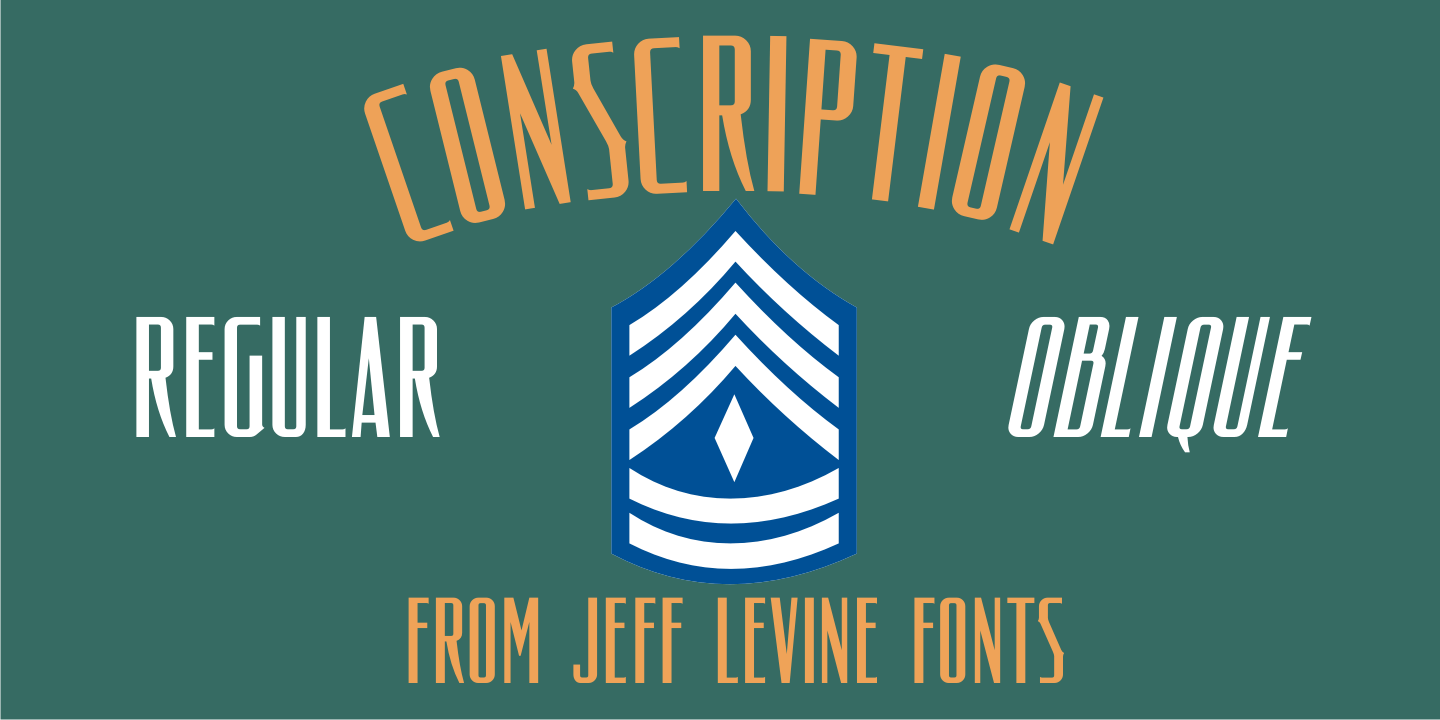
Conscription
The sheet music for the 1914 Word War I comic novelty song 'When the War Breaks Out in Mexico I'm Going to Go to Montreal” had one of those overly-worded song titles popular during this period (13!), along with interesting sans serif hand lettering.
It now debuts digitally as Conscription JNL in both regular and oblique versions.